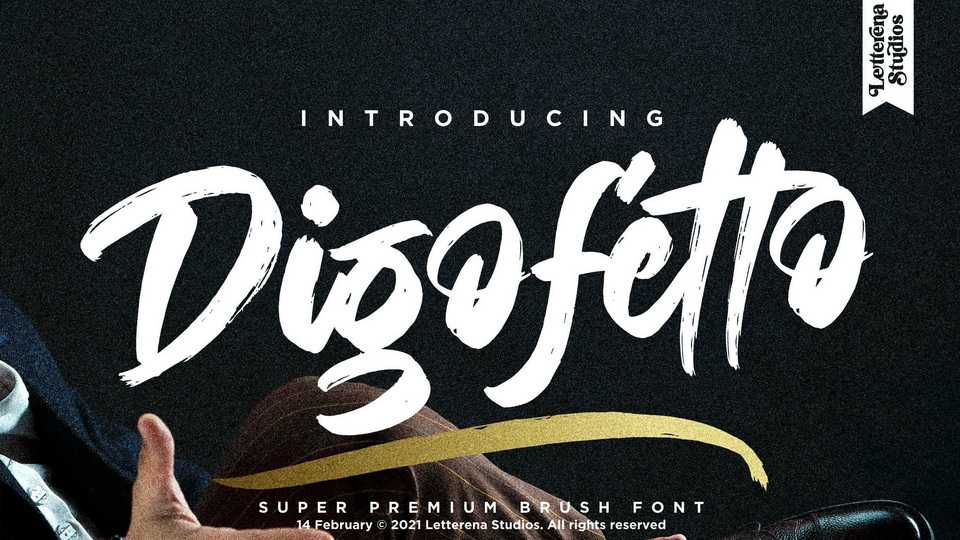
Digofetto Script Font › Fontesk – Download Grátis
Download Digofetto font, a premium strong brush typeface with a rough textured look. Digofetto is suitable for any projects such as logos, branding projects, homeware designs, product packaging, mugs, quotes, posters, shopping bags, t-shirts and more.